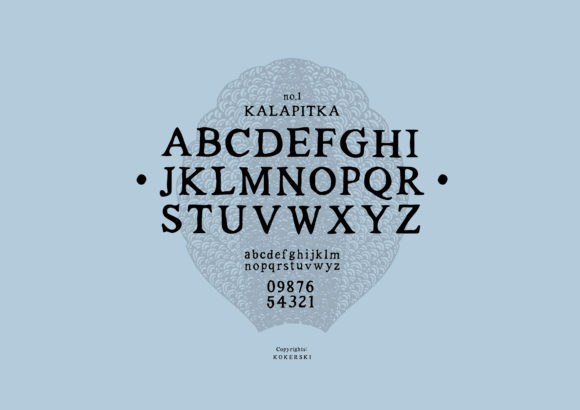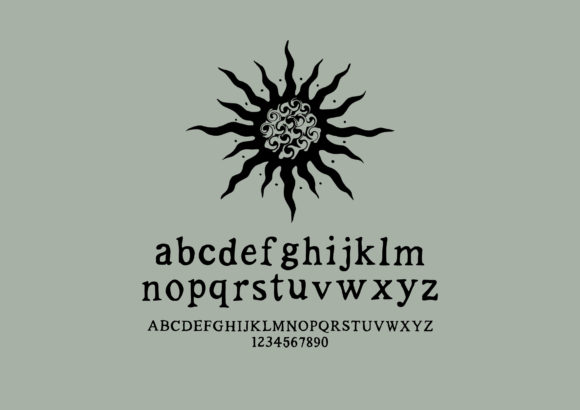
Kalapitka Font
About Kalapitka Font
Kalapitka feels equally charming and elegant. This handwritten font is the perfect fit for all of your logos, branding, social media, and crafty DIY projects.